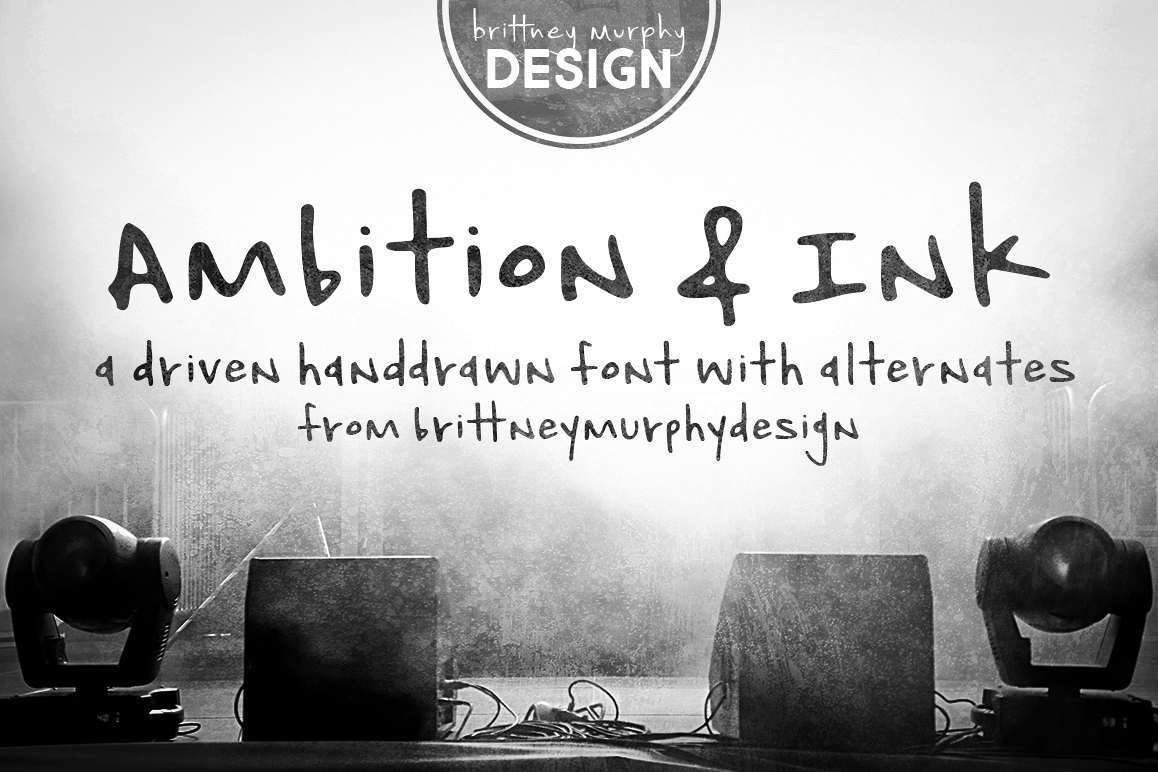
Ambition & Ink
Ambition & Ink is a driven handdrawn font with lots of customization options. It includes contextual alternates, stylistic alternates for a-z and A-Z, and ligatures.It can also easily be used as a unicase font by subbing the lower case letters that have ascenders and decenders (bdfghjklpqty) for uppercase ones.The font has 546 characters, including lots of accented letters, as well as Greek & Cyrillic.
Ambition & Ink